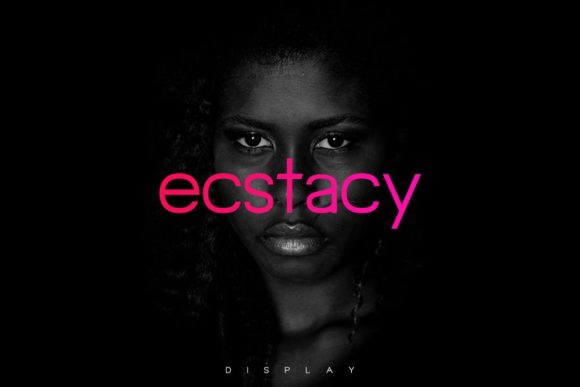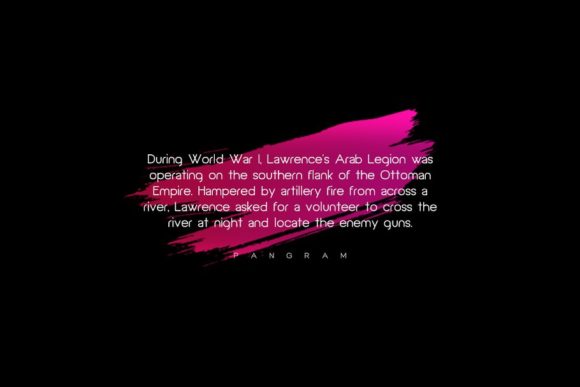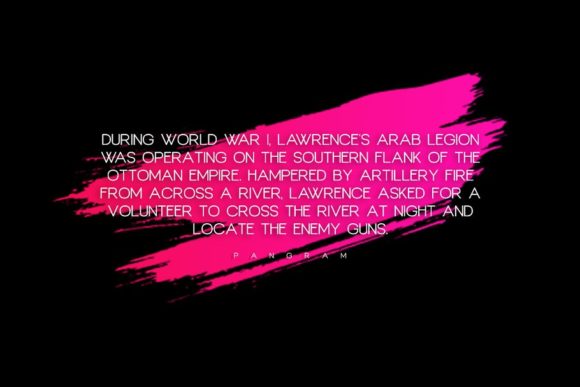
Introduction to Ecstacy Font
Ecstacy is a simple and natural sans serif font.
It can be matched to an incredibly large set of projects, so add it to your creative ideas and notice how it makes them stand out .
Ecstacy Font offers exceptional quality and versatility, making it a valuable addition to your design toolkit. Whether you’re creating for personal projects or commercial use, Ecstacy Font delivers professional results.